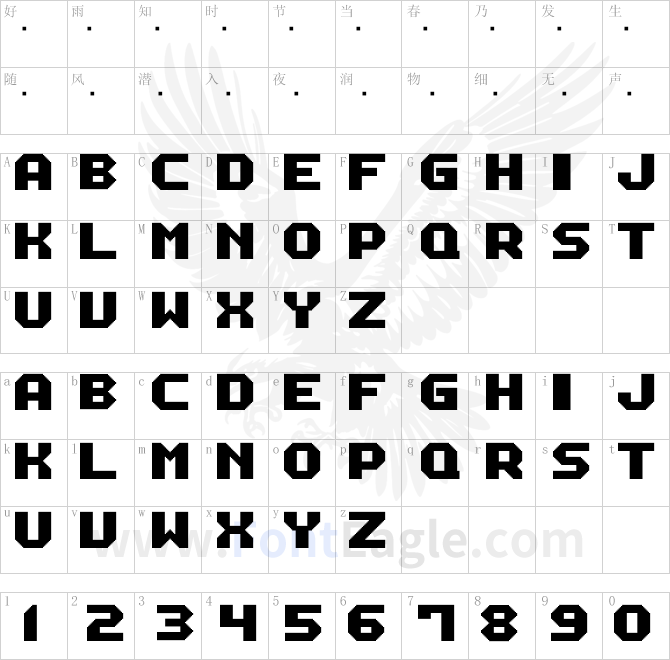
- Font name:M12_MACH BIKER
M12_MACH-BIKER is a great font, widely used in graphic design, single-page menu design, poster design and other fields, and is deeply loved by designers.M12_MACH-BIKER download.